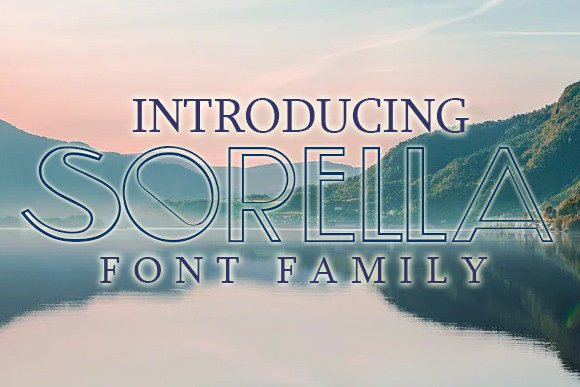
Introducing Sorella Font: Embark on a Typographic Adventure into Enchantment
Sorella Font isn't just a collection of letters; it's an enchanting journey into a world of whimsical elegance. Each character dances with a rhythm of its own, creating a symphony of visual delight that will transform your designs into captivating masterpieces. Sorella is a display font like no other, beckoning you to unleash your creativity and paint your words with hues of magic.
Created by the talented Vladimirnikolic, Sorella is a font that embodies the spirit of celebration and joyous occasions. Its modern, whimsical style is a perfect fit for birthday banners, adding a touch of enchantment to your special day. Imagine your words�動ing off the page, filled with an energy that captures the essence of laughter, love, and cherished memories. Sorella is the perfect font to express your heartfelt greetings and well wishes, making every birthday celebration an unforgettable affair.
But Sorella's magic isn't limited to birthdays alone. Its versatility knows no bounds. Whether you're creating invitations for a wedding, designing posters for a music festival, or crafting logos for a whimsical brand, Sorella will add a touch of magic and wonder to your creations. Its unique characters will make your words shine, captivating your audience with their captivating charm.
Immerse yourself in the world of Sorella Font, where creativity takes flight and imagination knows no limits. Let your words dance with joy, your designs sparkle with enchantment, and your audience bewitched by the beauty of Sorella's enchanting typography.